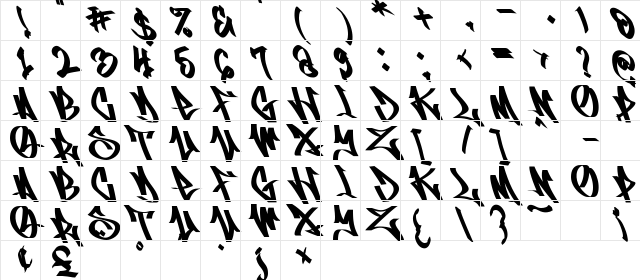
Vandal Rebels Monoline Regular Free Font
Vandal Rebels Monoline Regular
Designer: Muhammad Panji Ramdhani
Design Context for Vandal Rebels Monoline
Vandal Rebels Monoline uses fixed-width spacing throughout, giving it the structured, systematic character associated with coding environments and technical documentation.